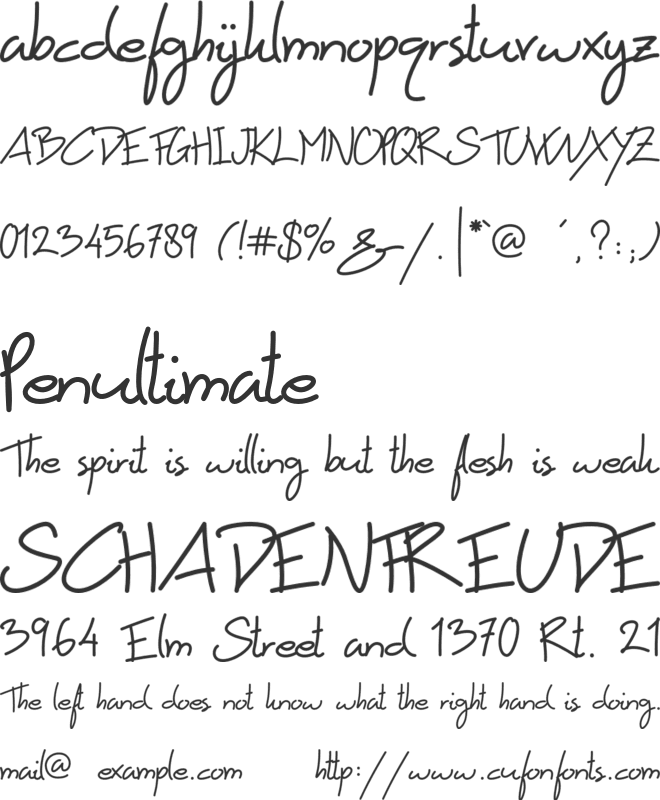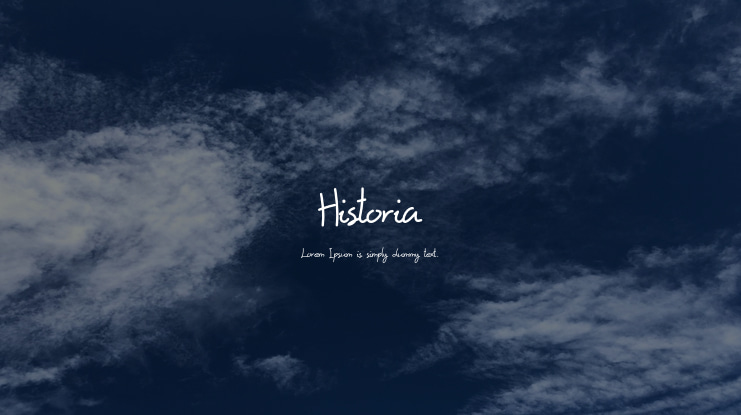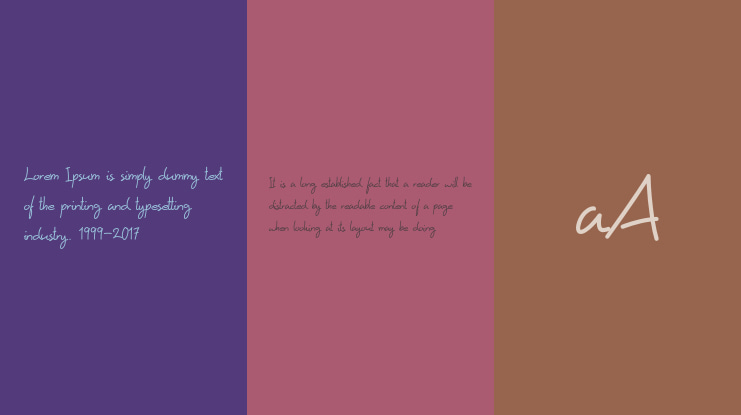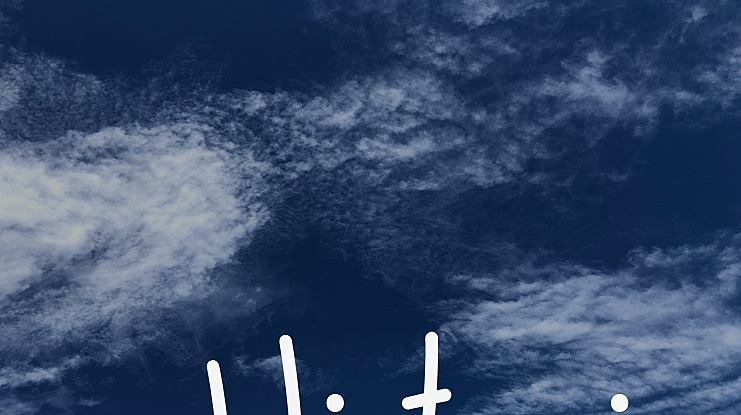
Historia Font
inspired by old handwriting, vintage document and classic signature. It is a heavily recommended font for your body text, vintage or classic designs and even for signature.Features: Uppercase, Lowercase, Alternate Characters, Ligatures, Numeric, Punctuation and Multi-language.Purchase a commercial license at .